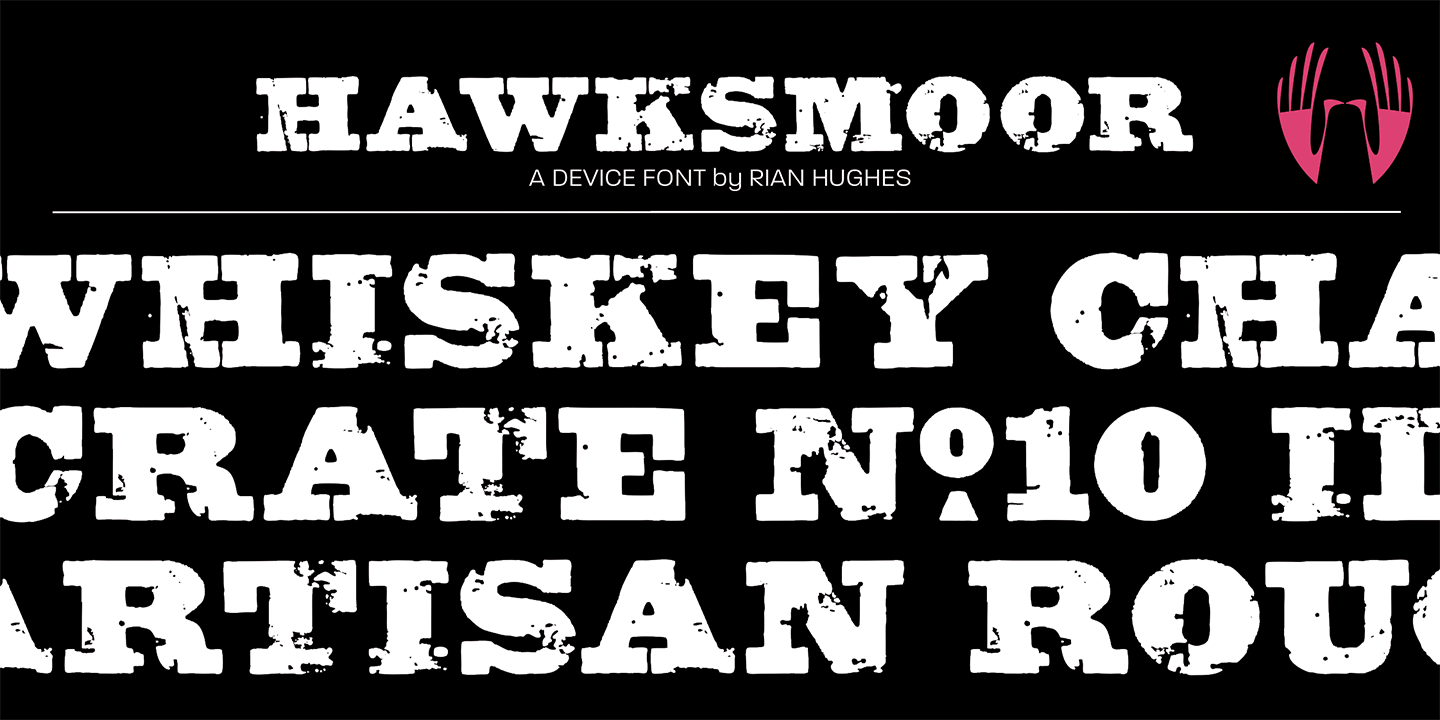
The Hawksmoor Font is perfect for architectural firm branding, classical building signage, heritage preservation materials, ecclesiastical design projects, prestigious academic institutions, traditional British establishments, historical monument documentation, baroque church graphics, stately home tourism, and distinguished cultural publications.
What makes the Hawksmoor Font exciting is its magnificent ability to embody the grandeur and architectural mastery of English baroque design through majestic letterforms that capture the monumental vision and timeless elegance of Christopher Hawksmoor's legendary church architecture. This distinguished typeface features classical proportions, baroque-inspired character construction, and architectural design elements that instantly evoke the soaring spires, dramatic stonework, and spiritual magnificence that define English ecclesiastical architecture. Each letter stands as a testament to the enduring power of classical design principles and architectural excellence.
The Hawksmoor Font family includes regular, italic, bold, and ornamental versions, along with architectural symbols, classical ornaments, and baroque decorative elements that enhance its monumental appeal across various heritage and institutional design applications.
Whether you're creating architectural brand identities or designing prestigious institutional materials, Hawksmoor Font Free Download delivers unmatched gravitas and authentic architectural sophistication. Its masterfully crafted classical letterforms ensure excellent readability while maintaining that essential monumental character that speaks to audiences seeking genuine architectural heritage and institutional dignity. The font's architectural features include contextual alternates, classical ligatures, and baroque variations that automatically create authentic ecclesiastical aesthetics. Architectural firms and heritage institutions consistently choose this font for projects requiring genuine architectural credibility and classical institutional appeal. The Hawksmoor Font transforms ordinary text into monumental declarations of architectural excellence, making it an essential cornerstone of any designer's classical typography foundation.